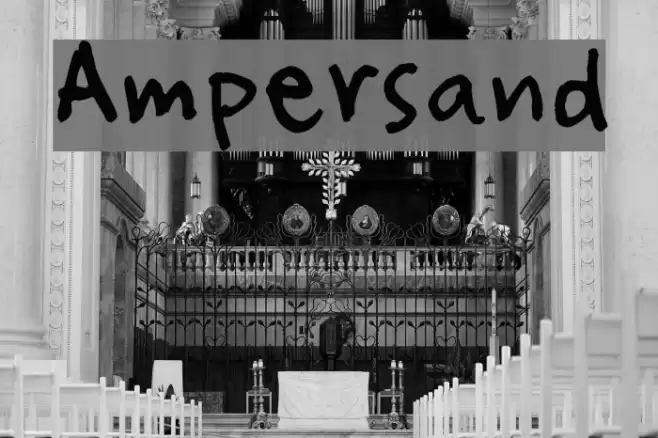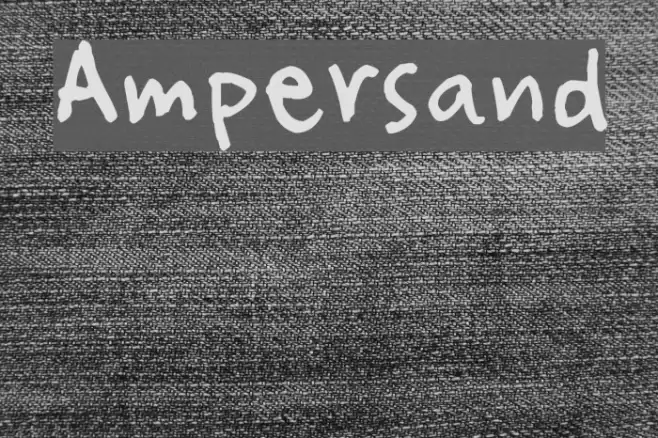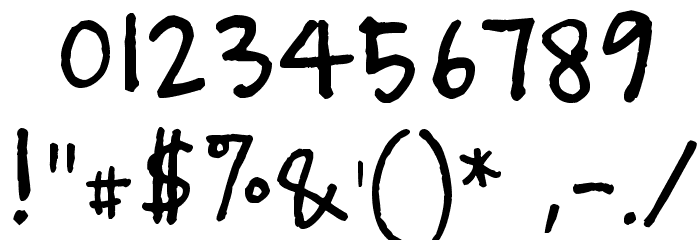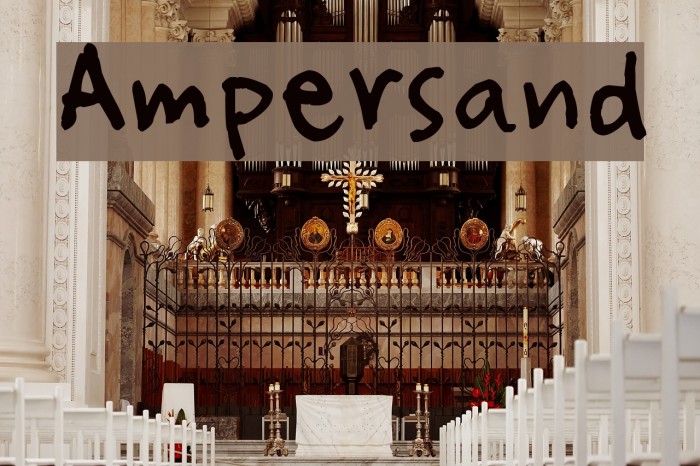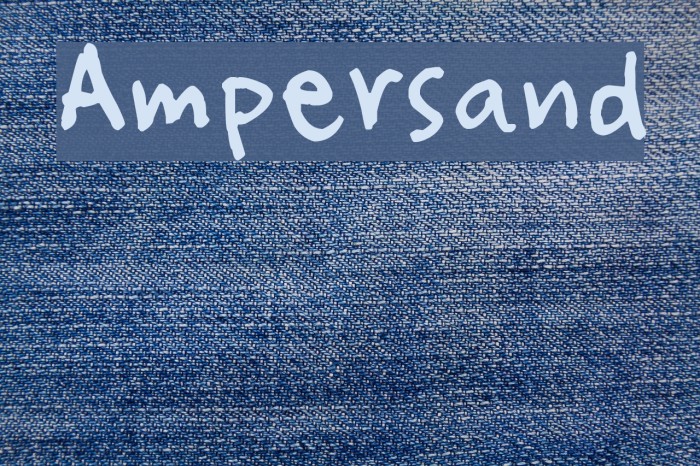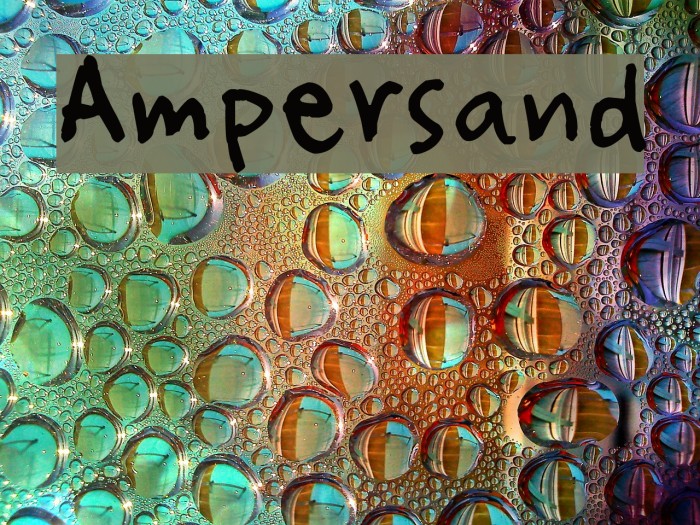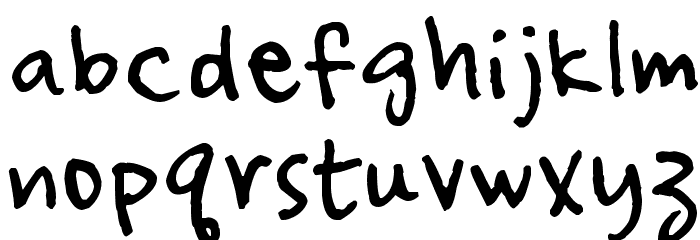
Ampersand Font
Ampersand Description
This font exudes a casual, handwritten style with a playful and informal appearance. The characters are crafted with a slightly uneven stroke, giving it a natural and organic feel. The uppercase and lowercase letters maintain a consistent style, with rounded edges and a slight slant that adds to its relaxed vibe. Numbers and special characters follow the same aesthetic, ensuring a cohesive look across all text elements. The font's design is approachable and friendly, making it suitable for projects that require a personal touch.
A casual, handwritten font with a playful and informal style from Handwritten fonts.
- Proposed Projects: Ideal for greeting cards, personal blogs, children's books, and informal branding.
- Overall Style: Casual
- Use Case: Headlines, Informal text, Personal projects